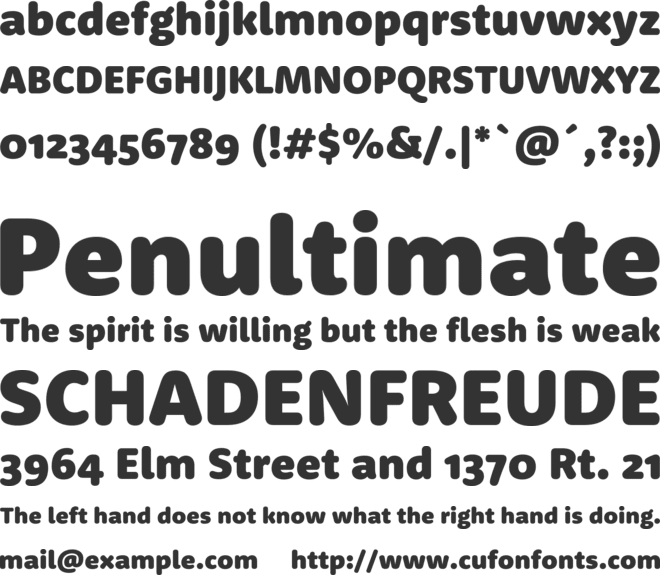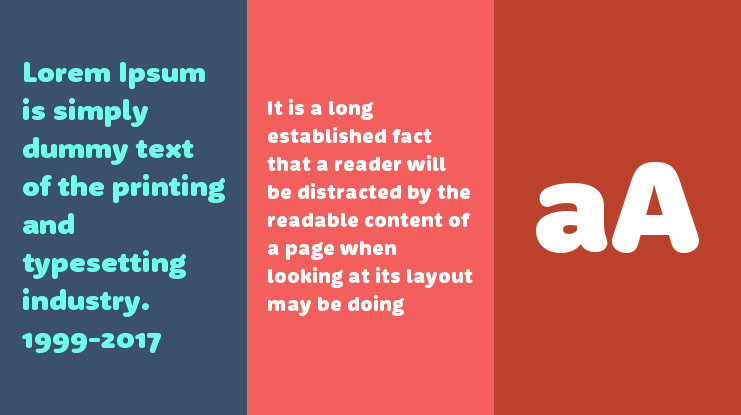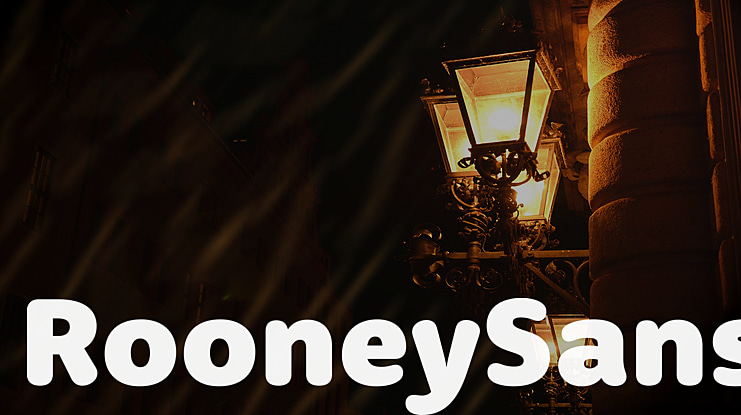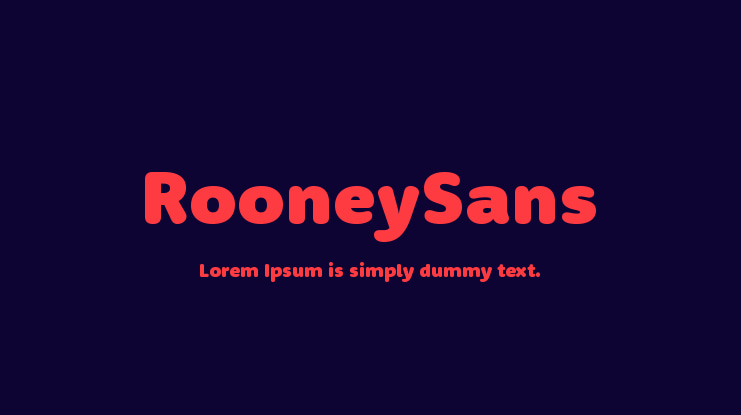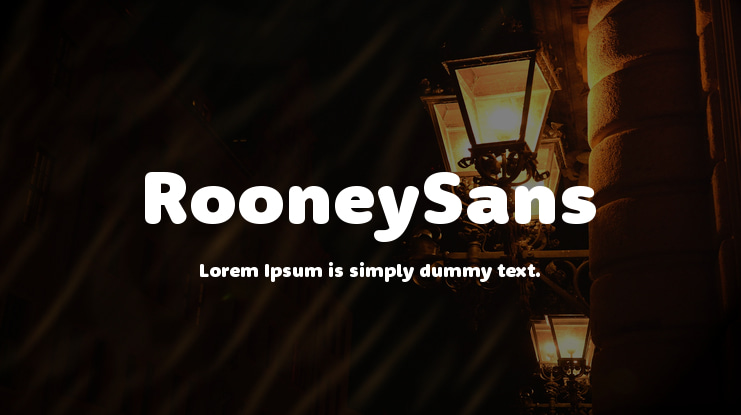
RooneySans Font Family
Jan Fromm
Rooney Sans is a humanist sans-serif typeface, and the latest addition to the Rooney family. It shares the same attributes as its seriffed companion – softly rounded terminals and a moderate contrast, thoughtfully applied to classical sans-serif proportions.
Although Rooney Sans was developed as a stand-alone typeface family, it combines well with Rooney since both typefaces share the same stem weights and an equal gray value.
Rooney Sans is suitable for any task in branding and packaging design and gives long texts a warm and inviting feel. All six weights from Light to Black come with matching real italics.